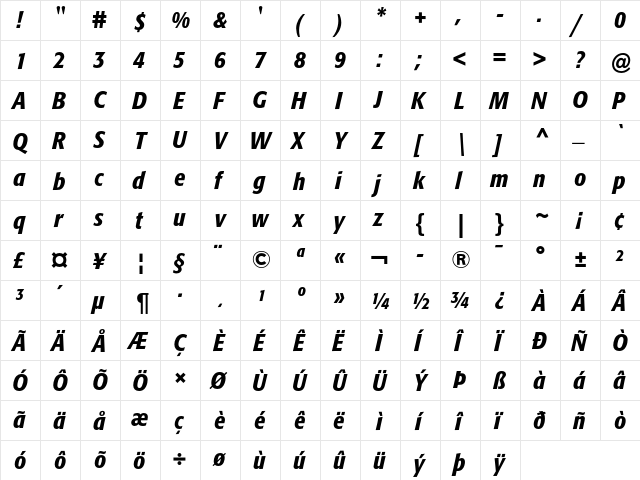
Formata Medium Condensed Italic
Design Context for Formata Typeface
Formata is a composed and adaptable typeface that performs quietly and consistently across a wide range of design contexts. Its italic angle brings a sense of urgency and motion to the letterforms. The condensed width makes it efficient for tight spaces without sacrificing legibility.
Pro Tip: Use Formata for emphasis, pull quotes, and subheadings where its slanted energy can add rhythm to the layout.